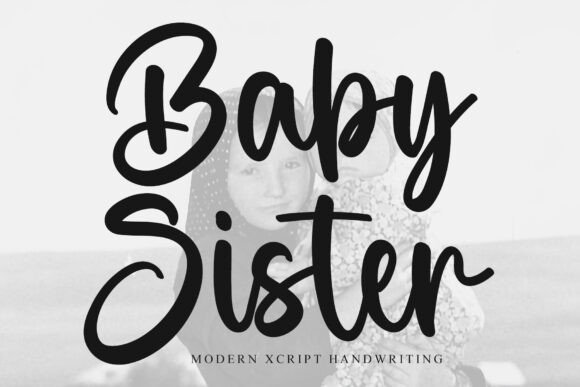
Unleashing Your Inner Artist: Discover the Magic of Baby Sister Font
As a designer, have you ever found yourself stuck in a creative rut, struggling to bring a fresh idea to life? You’re not alone. Sometimes, all it takes is a spark of inspiration to set your imagination ablaze. For me, that spark came in the form of the Baby Sister Font – a beautifully crafted typeface that combines the charm of handwritten strokes with a bold, playful display style.
With its smooth curves and artistic flair, Baby Sister Font is the perfect companion for any creative project. Whether you’re working on a whimsical logo, a casual blog post, or a stylish brochure, this font delivers a truly remarkable design experience. Its versatility makes it a valuable asset for designers, allowing them to add a fun yet elegant touch to their work.
Baby Sister Font Key Features
- Unique Characteristics: The Baby Sister font is a handwritten, cursive script font with a playful and whimsical feel, featuring swashes and flourishes.
- Kerning and Ligatures: The font includes advanced kerning and ligature features to ensure smooth text rendering and a professional look.
- Font Weight and Style: The Baby Sister font is available in a single weight and style, but it can be used to create a range of visual effects with its varying line widths and swashes.
Design Review: Baby Sister Font
Overall, I think the Baby Sister Font is a cute and playful addition to any design project. ✨ Here are some of its strengths:
- Casual and approachable vibe: This font is perfect for creating a friendly and welcoming atmosphere in your designs.
- Varied font weights: The different weights and styles offer a lot of flexibility when it comes to creating visual hierarchies and emphasizing certain text elements.
- Quirky charm: The font’s unique characteristics, like its rounded edges and irregular shapes, add a touch of personality to your designs.
- Readability: While the font is cute, it can be a bit challenging to read, especially in smaller font sizes or when used for large blocks of text.
- Limited language support: The font might not support all languages or character sets, which could be a problem for global design projects.
Overall, I think the Baby Sister Font is a great choice for projects that require a playful and casual tone. Just be mindful of its limitations and use it thoughtfully to ensure the best results.
Tip: Use the Baby Sister Font in combination with other feminine fonts to create a cohesive design.
Tip: Use the Baby Sister Font in conjunction with other design elements, such as graphics and textures, to create a unique and eye-catching design.
Tip: Use the Baby Sister Font to add a touch of elegance and sophistication to your presentation or document.
The Baby Sister Font is perfect for:
- Baby shower invitations and decorations
- Feminine business branding and marketing materials
- Personalized gifts and home decor
Alternatives to Baby Sister Font
Great Vibes is a playful, cursive script font suitable for designing invitations, greeting cards, and other creative projects. It features a mix of modern and vintage elements, making it a great choice for designers who want to add a touch of whimsy to their designs.
Great Vibes is similar to Baby Sister Font in its cursive and playful nature, but it has a more modern and edgy feel. It is ideal for designers who want to create eye-catching and unique designs.
Alex Brush is a beautiful, handwritten script font perfect for creating elegant and sophisticated designs. It features a mix of formal and casual elements, making it suitable for designers who want to add a touch of refinement to their projects.
Alex Brush is different from Baby Sister Font in its more formal and elegant feel. It is ideal for designers who want to create high-end designs for luxury brands or special occasions.